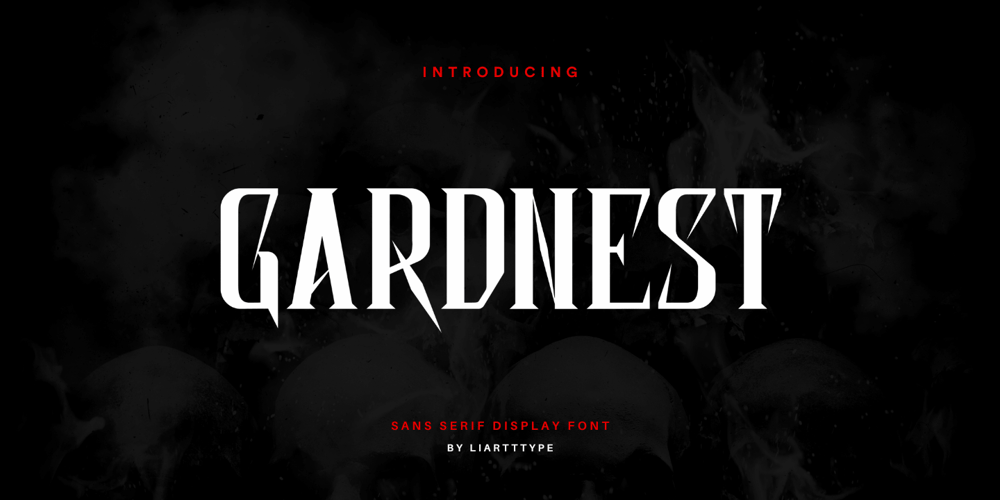
Gardnest
Gardnest font
Gardnest Font Family was designed by Ali Sifak Muftari and published by Liartgraphic. Gardnest contains 1 styles and family package options. Meet our newest product, we call this product Gardnest font. Gardnest font are cute typeface font with a uniqe touch and assertive. Gardnest font is very nice to use on: fashion magazine, logos, ,and photography, landing page, flyer,What’s includes- multilingual support- alternate- ligatureThank you, salutationsAli Sifak Muftari